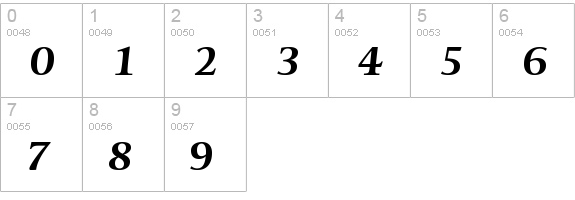
Mentor Bold Italic is a strong, high-contrast, italic variant in the Mentor typeface family \xE2\x80\x94 well suited to headlines, attention-grabbing titles, and strong calls-to-action.
Mentor Bold Italic font is a versatile and modern typeface that exudes sophistication and elegance. Its bold yet sleek design makes it perfect for a variety of design projects, from branding to editorial layouts. The italicized style adds a touch of flair and dynamism to your text, making it stand out in a sea of ordinary fonts. What makes Mentor Bold Italic font even more appealing is that it is available for free download at FontsMarket.com. This means that you can easily access this high-quality font without any cost, allowing you to elevate your designs without breaking the bank. Whether you're a seasoned designer or just starting out, Mentor Bold Italic font is a valuable addition to your font library that you won't want to miss.